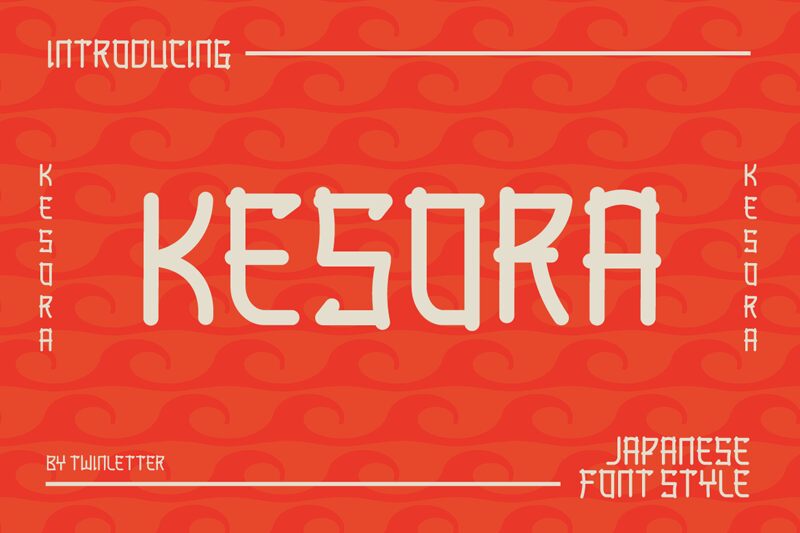
KESORA, a stunning semi-light font designed by twinletter, will transport you to the land of the rising sun. Inspired by Japanese calligraphy, this faux Japanese typeface is perfect for adding a touch of elegance and authenticity to your designs. Use it for branding projects that require a unique and exotic flair or incorporate it into your website design for an eye-catching header or logo. Whether you're designing wedding invitations or creating a new menu for your sushi restaurant, KESORA is the ideal choice to add some foreign charm and sophistication to your layout.